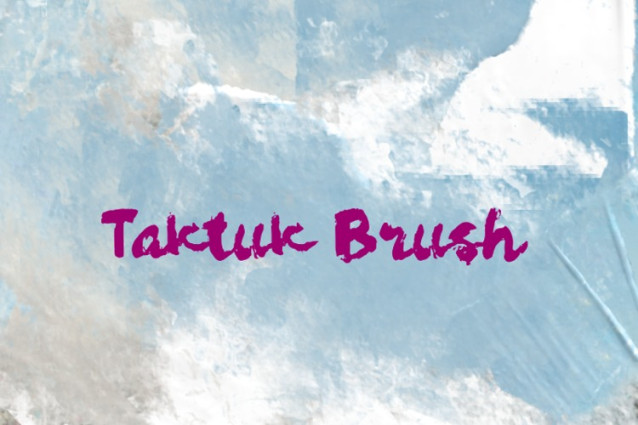
Taktuk Brush Font
Taktuk Brush Font is a hand drawn brush font, suitable for any project like logo, branding project, homeware design, product packaging, mugs, quotes, posters, shopping bags, t-shirts, book covers, business cards, invitations, greeting cards, labels, photography, watermarks, special events and all your other luxury projects that need a premium signature feel.